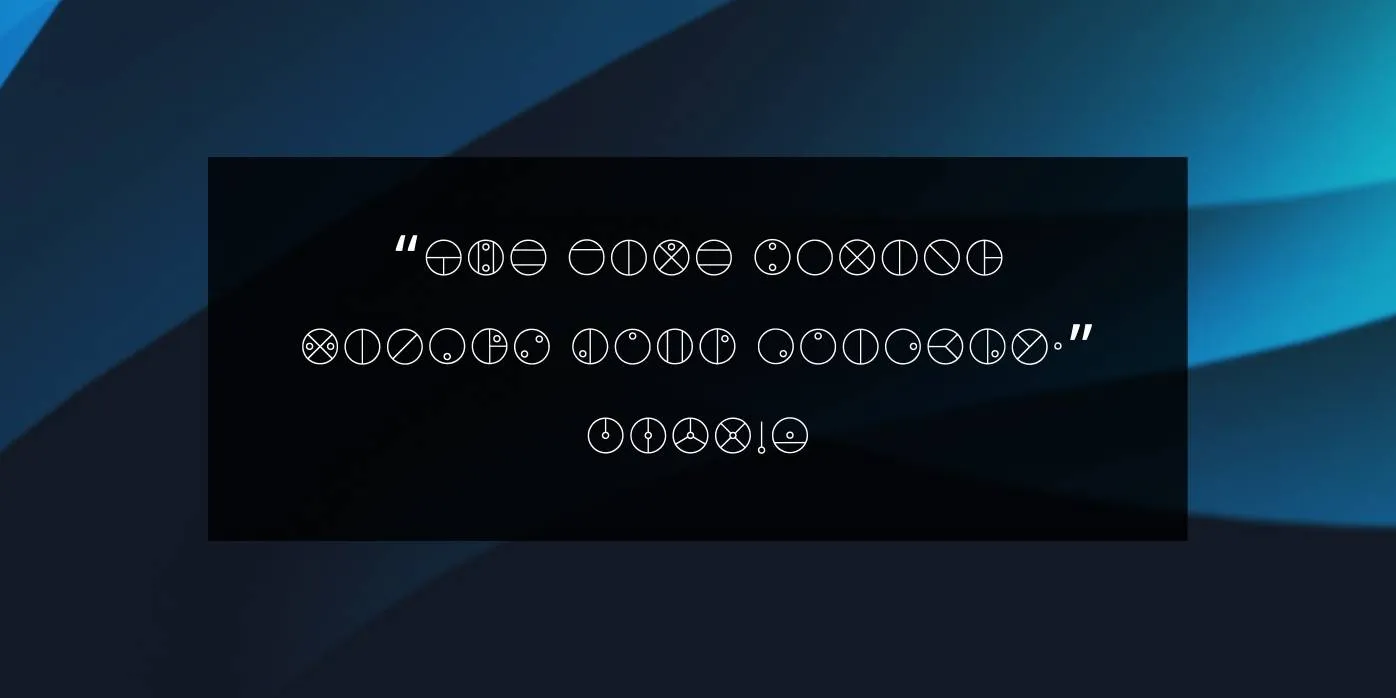
Bionicle Font
Bionicle Font is a modern dingbat typeface that was developed for Atomic City Games. The font consists of two different styles: the Regular style and the Display style. The Display style is designed for use in headlines and other display purposes, while the Regular style is intended for use in body text. This classy font project was launched in early 2013, with the aim of creating a dingbat typeface that would be suitable for use in video games, websites, and other digital media.
The project was led by designer Ryan Paglinawan, who is also responsible for the creation of the popular font. You can also use the haymaker font which is closest to this font family. This typeface consists of two different weights and glyphs. The first weight is the Regular style, which includes lowercase letters, uppercase letters, numbers, and punctuation marks.